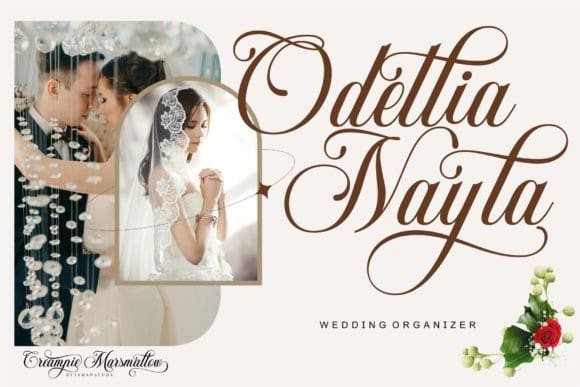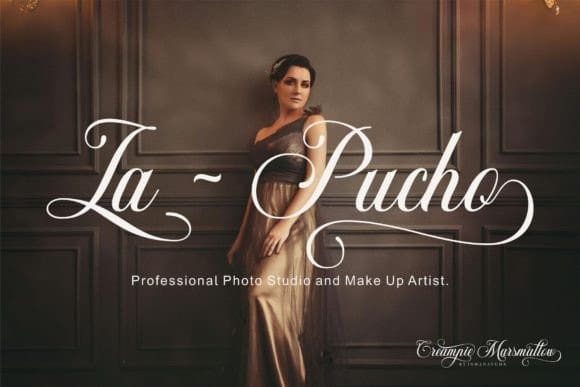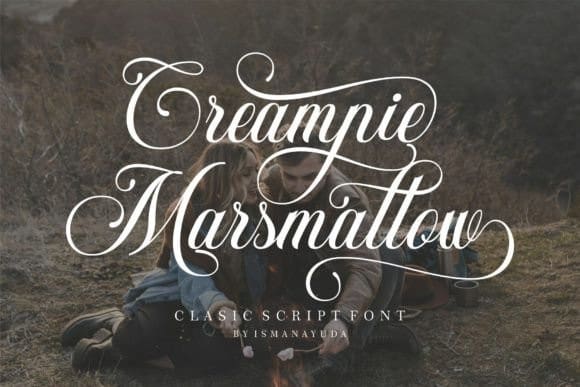
Creampie Marsmallow Font
Creampie Marsmallow Font is a font that uses a script or continuous vertical writing style but is given a calligraphy and italic feel so that this font is able to give an elegant and cool impression when used for wedding invitations or other display needs.